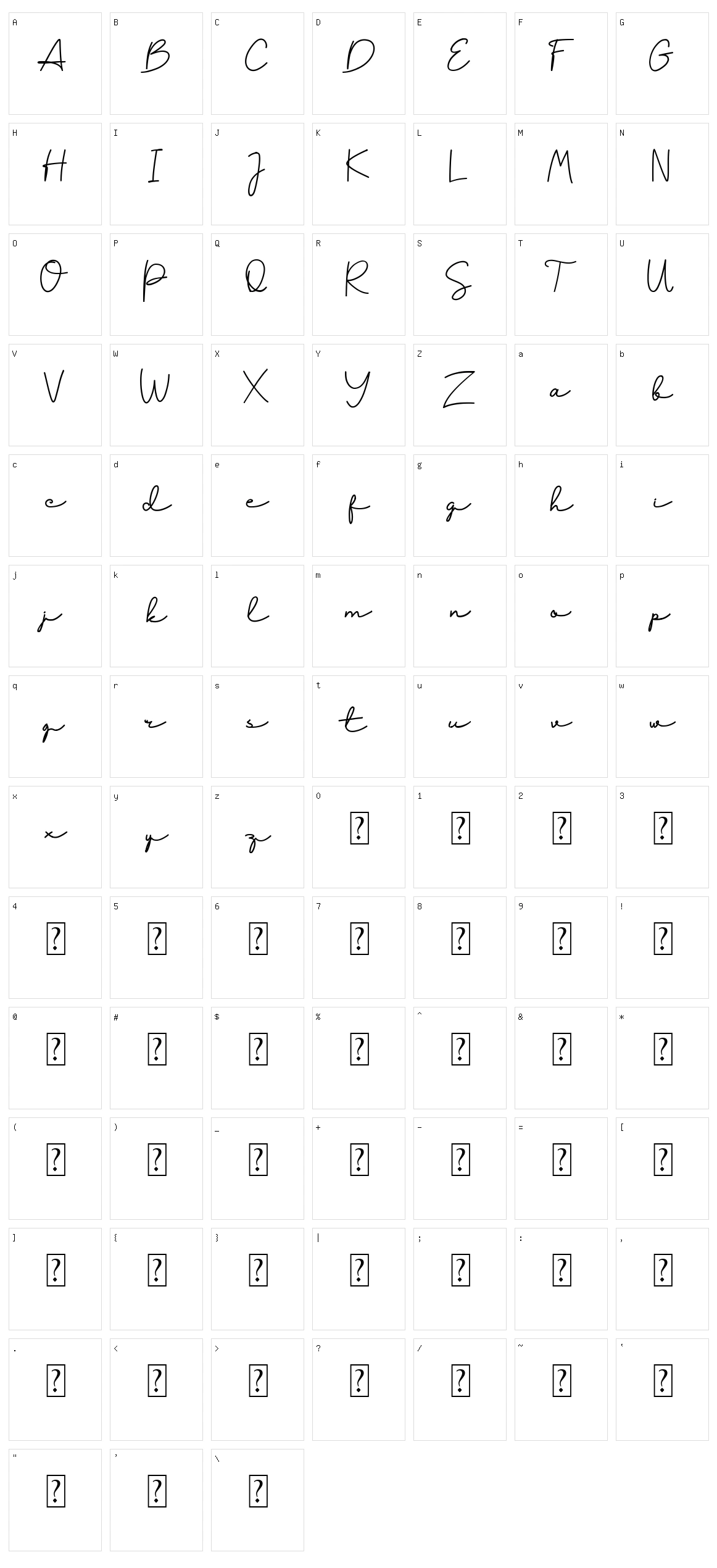
The free font Fuzzybrand is carefully designed by PandAE86, showcasing a thoughtful balance of creativity and usability and falls under the Script font style. When you download the ZIP file, it contains only 18.63 KB of font files, making it lightweight and quick to download. Please review the license details below to understand permitted usage and distribution rights. If license information is not available, we recommend using this font for personal projects only or contacting the author directly for commercial usage permissions.